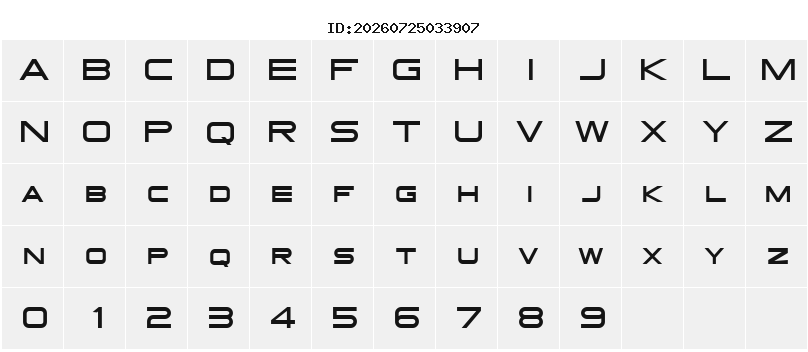
Gotthard Preview
• Font Name: Gotthard
• Full Font Name: Gotthard
About Gotthard.ttf
Gotthard.ttf is a modern, elegant sans-serif font designed for ultimate readability and visual harmony. Perfect for branding, headlines, web design, and print materials.